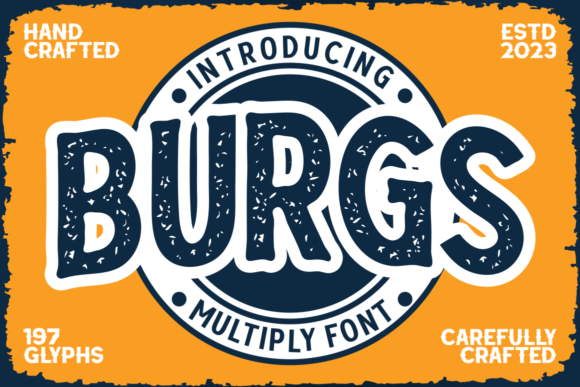
Unleashing Creativity with Burgs Font
Have you ever stared at a blank canvas, wondering which font would bring your design to life? The moment of truth arrives when you discover the perfect typeface to convey your message. This is where Burgs Font comes in – a multistyle font that offers a world of creative possibilities.
Burgs Font is more than just a font; it’s a collection of eight unique styles that cater to various design needs. From modern sans-serif to classic serif, this versatile font allows designers to experiment with different looks and feels. Whether you’re working on a logo, poster, or business card, Burgs Font provides the flexibility to adapt to any project.
With Burgs Font, designers can tap into a wealth of creative possibilities, pushing the boundaries of what’s possible in design. Its versatility and range of styles make it an invaluable tool for any creative project.
Burgs Font Key Features
- Unique Characteristics: Burgs Font features a unique blend of modern and vintage elements, with a bold and playful aesthetic that sets it apart from other fonts.
- Font Weight: Burgs Font is available in multiple weights, including light, regular, bold, and black, allowing users to choose the perfect weight for their design needs.
Burgs Font Review
I recently had the chance to work with Burgs Font, and I have mixed feelings about it. While it has some unique qualities, it also has some limitations that might make it less suitable for certain projects.
- Unique design: Burgs Font has a distinct style that sets it apart from more common fonts. Its bold, chunky letters can add a lot of character to a design.
- Good for headings: The font’s size and weight make it well-suited for headings and titles, where you want to draw attention to the text.
- Customizability: Burgs Font comes in a range of weights and styles, which can be helpful for designers who want to create a consistent look across their project.
Limitsations ⚠️
- Readability issues: While Burgs Font looks great at larger sizes, it can be difficult to read at smaller sizes due to its chunky texture.
- Limited legibility: The font’s unique design can make it harder to distinguish between similar letters, which can lead to mistakes and misreadings.
- Not suitable for large blocks of text: Due to its bold, attention-grabbing style, Burgs Font can be overwhelming when used in large quantities, making it better suited for short texts or accents.
Overall, I think Burgs Font is a solid choice for designers who want to add some personality to their projects, but it may not be the best fit for every situation. With careful use and consideration, it can be a valuable addition to your design toolkit.
For best results, use Burgs Font in titles and headings to create a bold and eye-catching effect.
For a unique look, experiment with layer blending modes and opacity settings.
For maximum impact, use Burgs Font in combination with bold and italic text styles.
Some popular use cases for Burgs Font include:
- Titles and headings
- Graphic design and illustrations
Remember to experiment with different font sizes, colors, and styles to
Great Vibes Font is similar to Burgs Font in its flowing and cursive nature, but it’s more refined and elegant. While Burgs Font has a more casual and playful feel, Great Vibes Font is more formal and sophisticated.
For optimal readability, we recommend using a font size between 12-14 points and a line height of 1.2-1.5 times the font size. This will provide a comfortable reading experience and ensure the font’s unique characteristics are showcased effectively.
Q: Can I customize the Burgs Font to fit my specific design needs?
Yes, the Burgs Font is highly customizable. You can adjust font weights, styles, and sizes to suit your design requirements. Additionally, you can use font editors or software to modify the font’s glyphs and create custom variations.